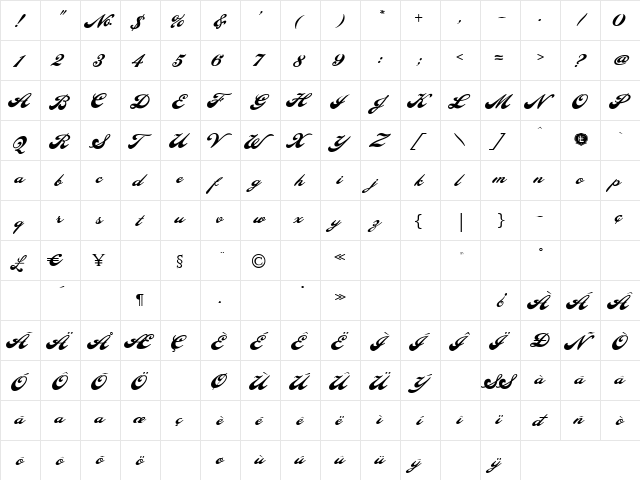
LHFPilsnerRegular Regular
Design Context for LHFPilsnerRegular Typeface
LHFPilsnerRegular is a composed and adaptable typeface that performs quietly and consistently across a wide range of design contexts.